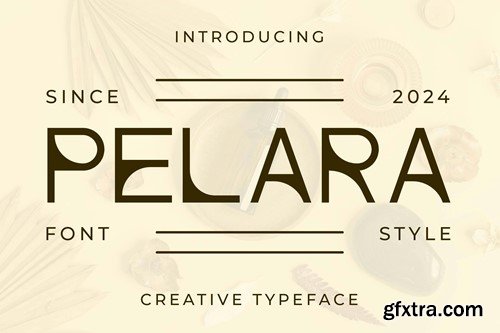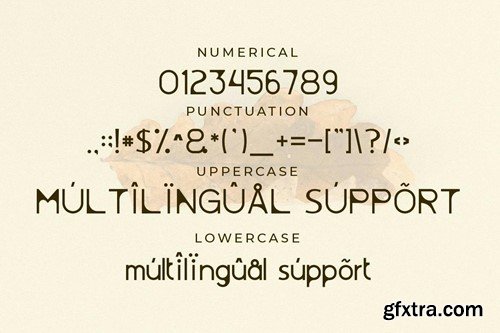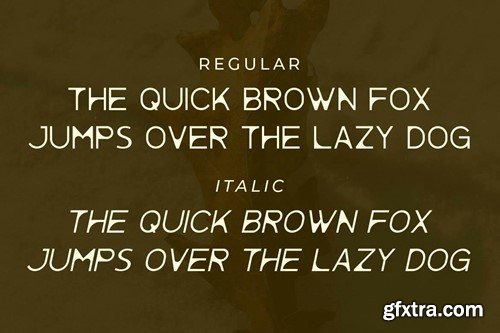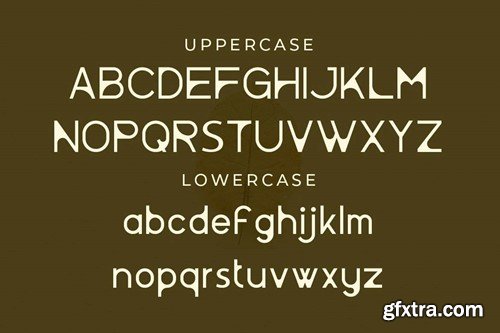
Pelara - 创意优雅字体 EQ3QQC4
Pelara - Creative Elegant Typeface EQ3QQC4
Pelara - Creative Elegant Typeface
This font is perfect for posters, social media posts, branding, personal projects, etc.